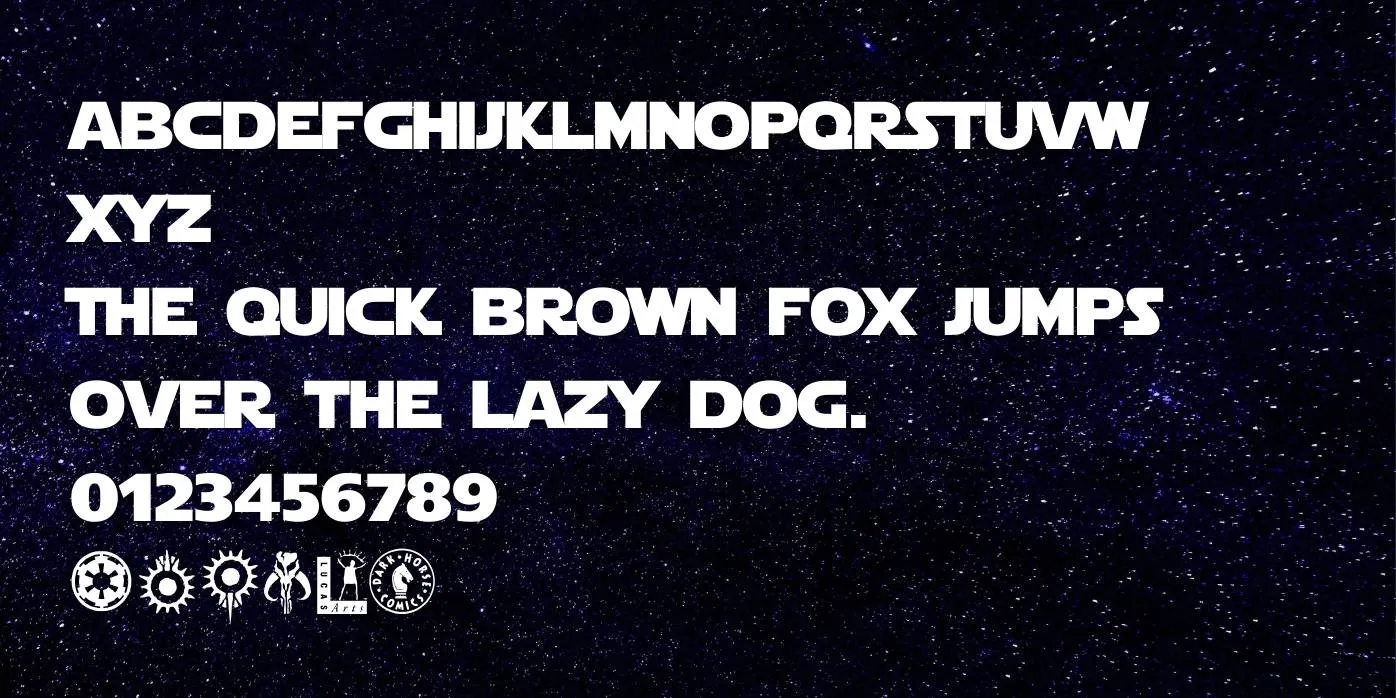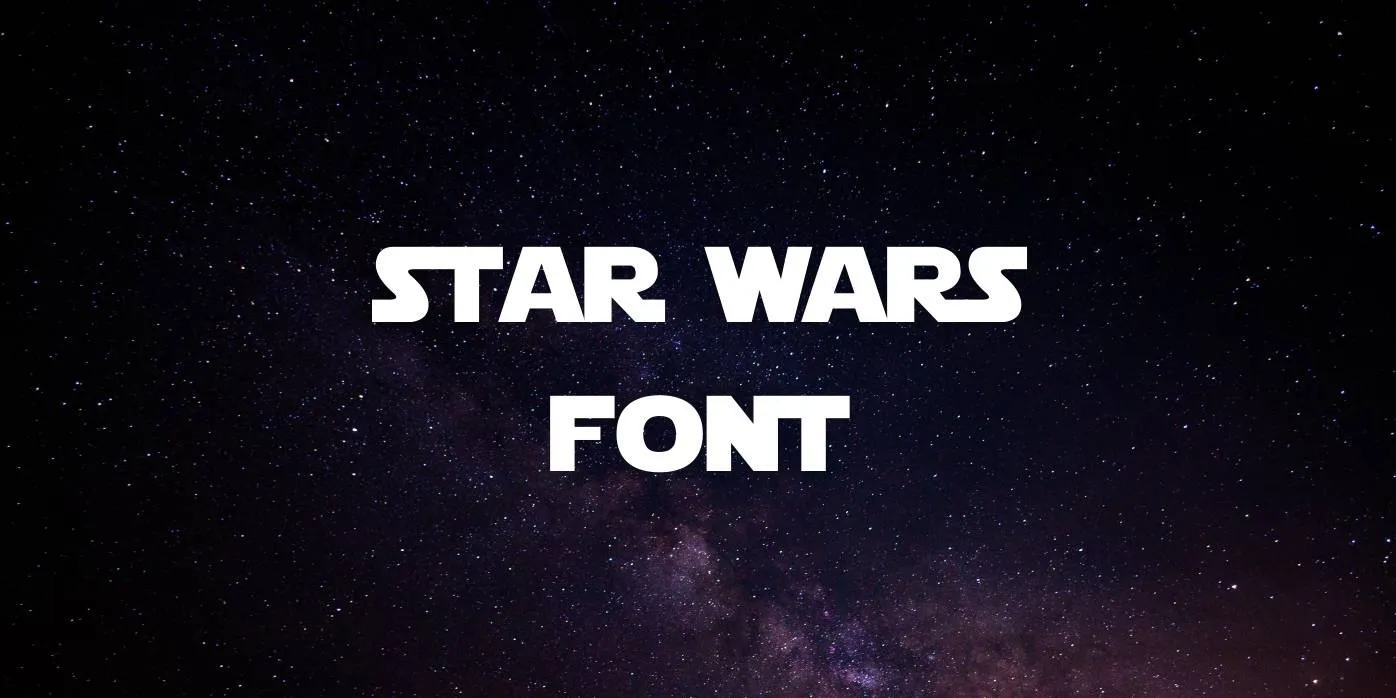
Star Wars Font
Star Wars Font is known for its use in adobe and also for fonts generator function. This typeface share similarity with the hollow font. The font’s original name is Star Jedi Typeface that is the crafting of “Boba Fonts” and that belongs to a Techno font family. This Bold techno typeface gives off a vintage vibe.
Its formidable look makes it like-minded with emblems, t-shirts, packaging, and extra. The font family is totally free for commercial use and personal use also. This font has 3 different weights that include Star Jedi Rounded, Star Jedi, Star Jhol and all the weights are totally free to use and have TTF features. Its star jhol style has only stroke and doesn’t have a filling that seems pretty cool.
The font family has Uppercase Letters, Lowercase Letters with little bit change characters, Numbers and Numerals, and unusual symbols also.